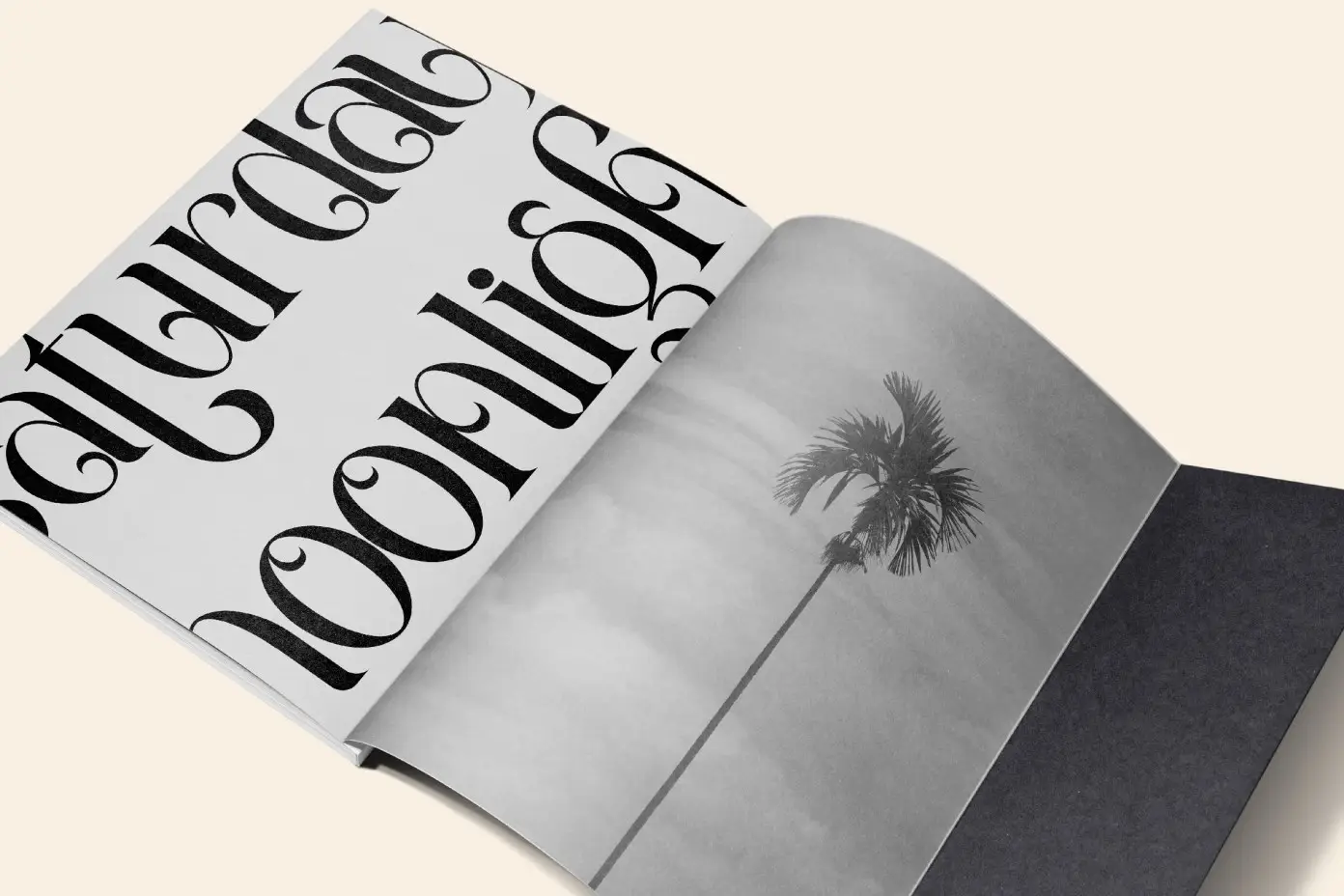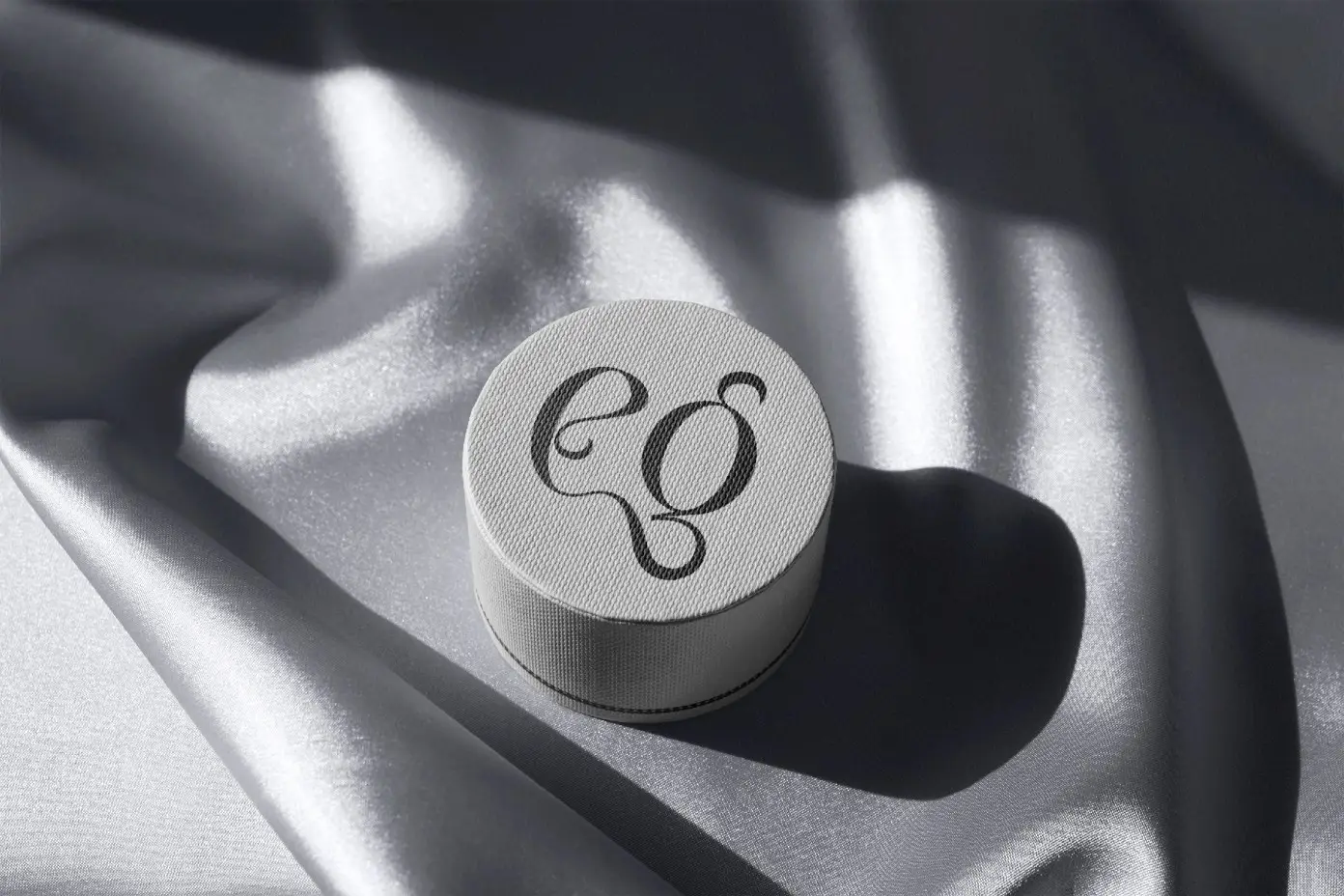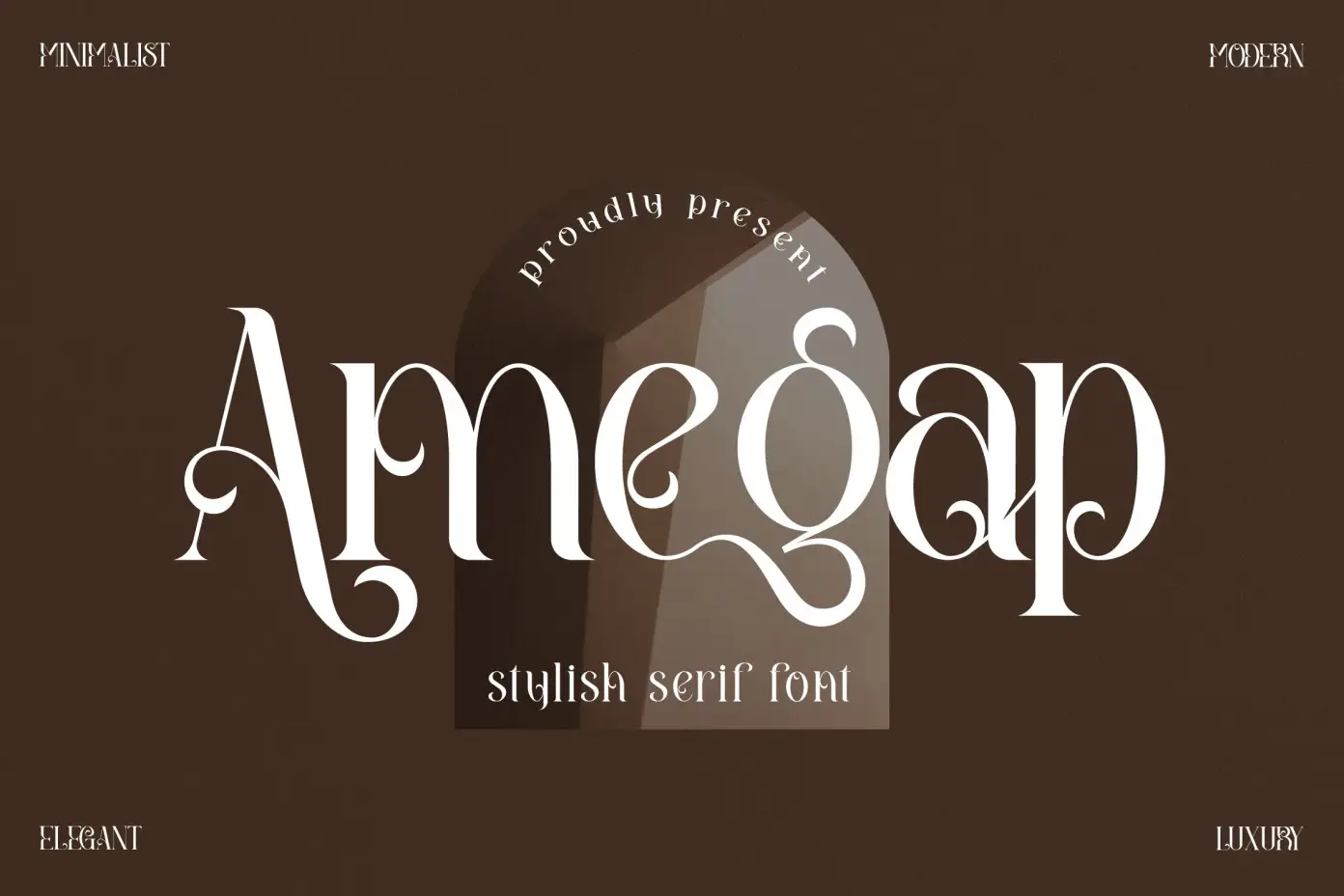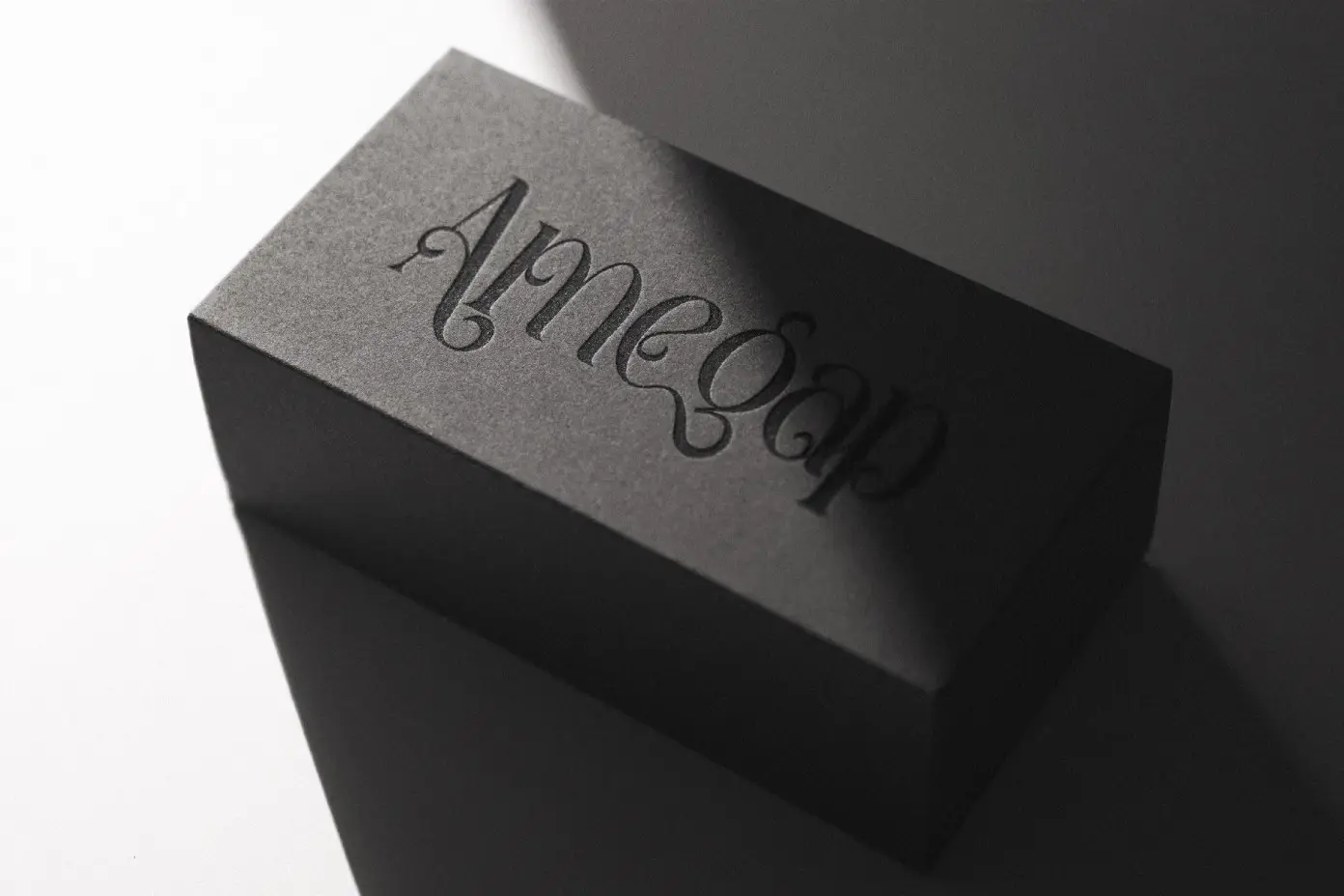
Amegap Serif Font
Amegap Serif Font is a beautifully crafted typeface that combines elegance with readability. Its unique serif design makes it suitable for a variety of applications, including branding, logos, web design, and print materials.
• Stylish serif design
• Easy to read at various sizes
• Ideal for creating elegant logos and branding materials
• Perfect for editorial design and print projects
• Use for web typography to enhance user experience